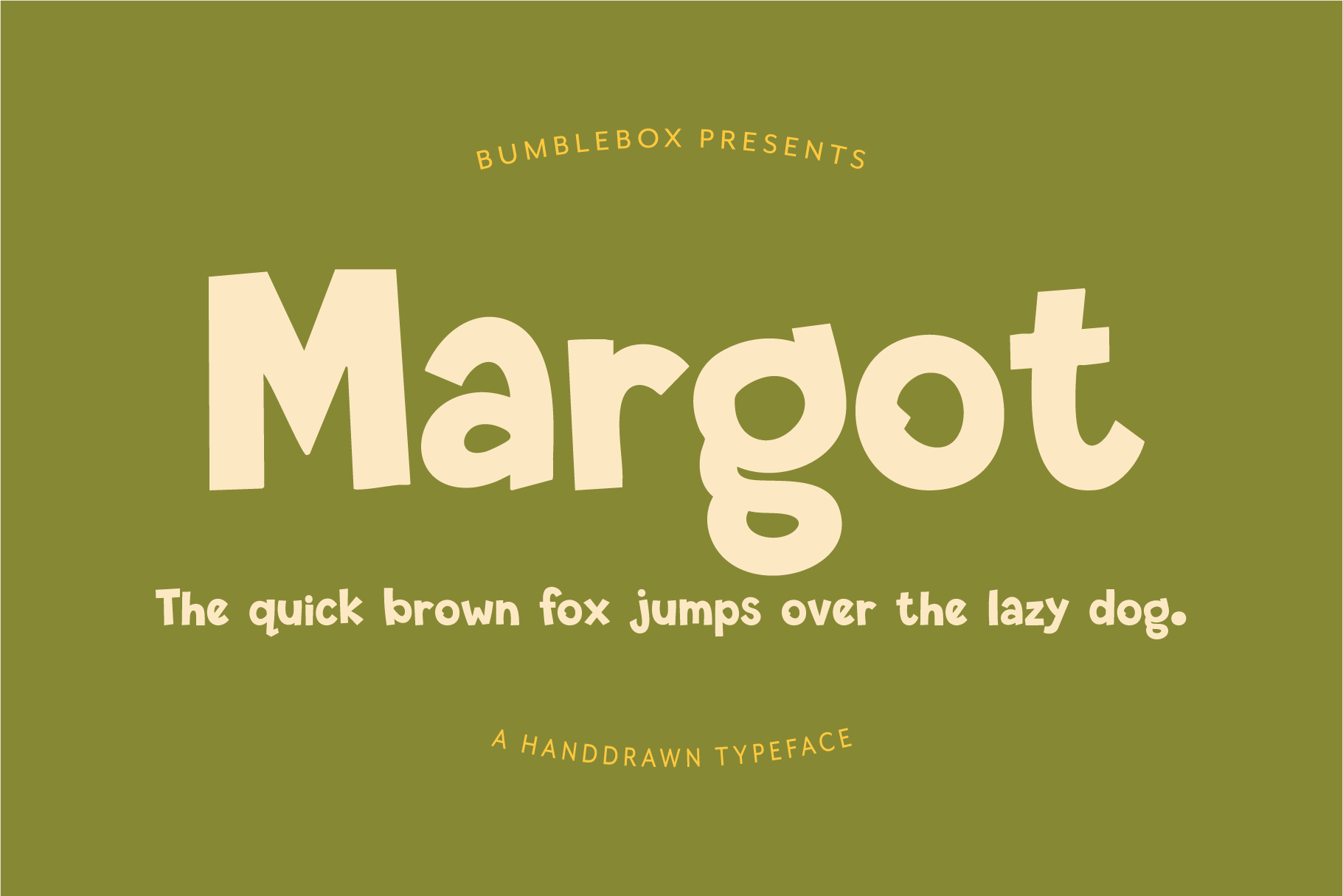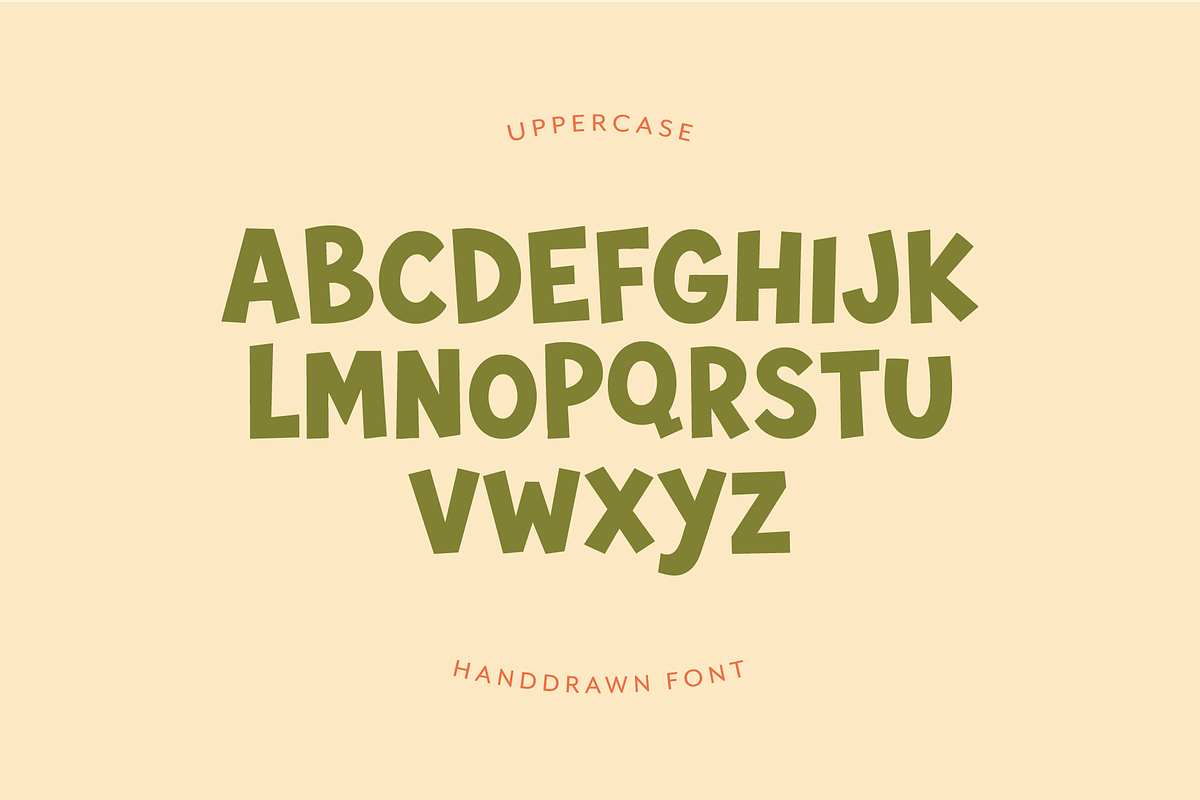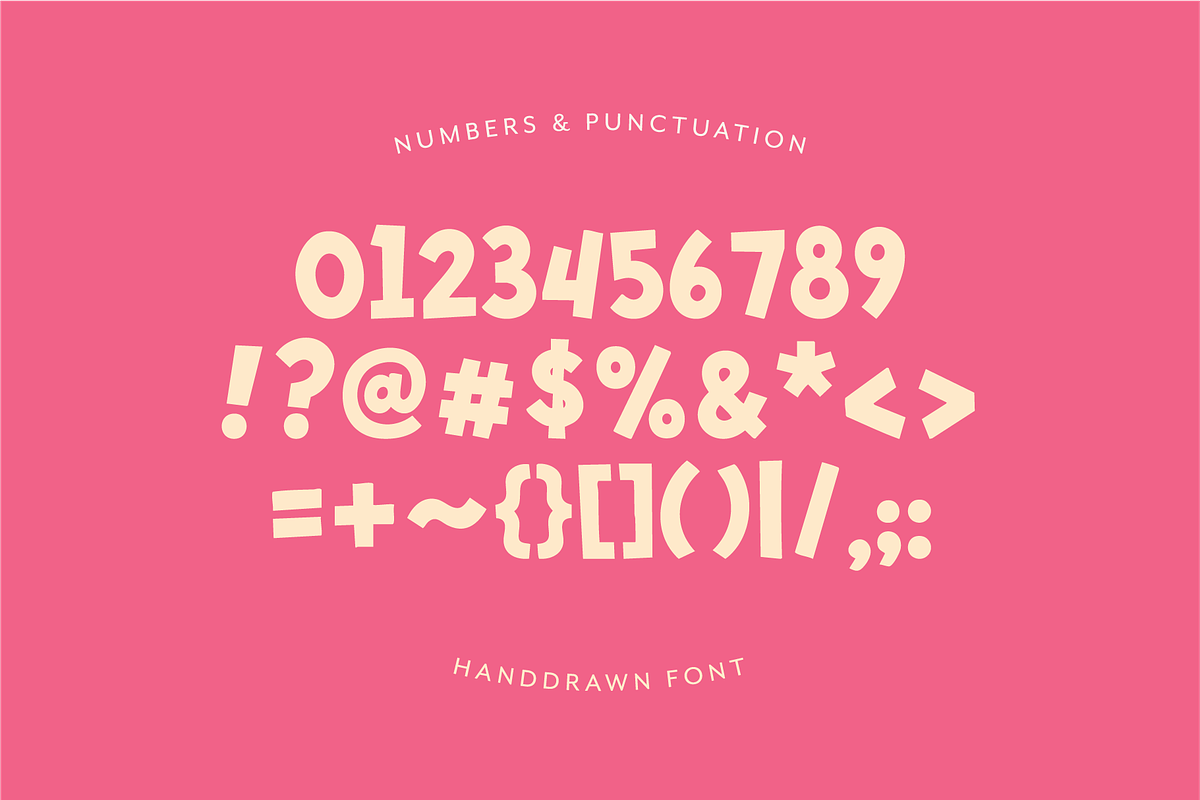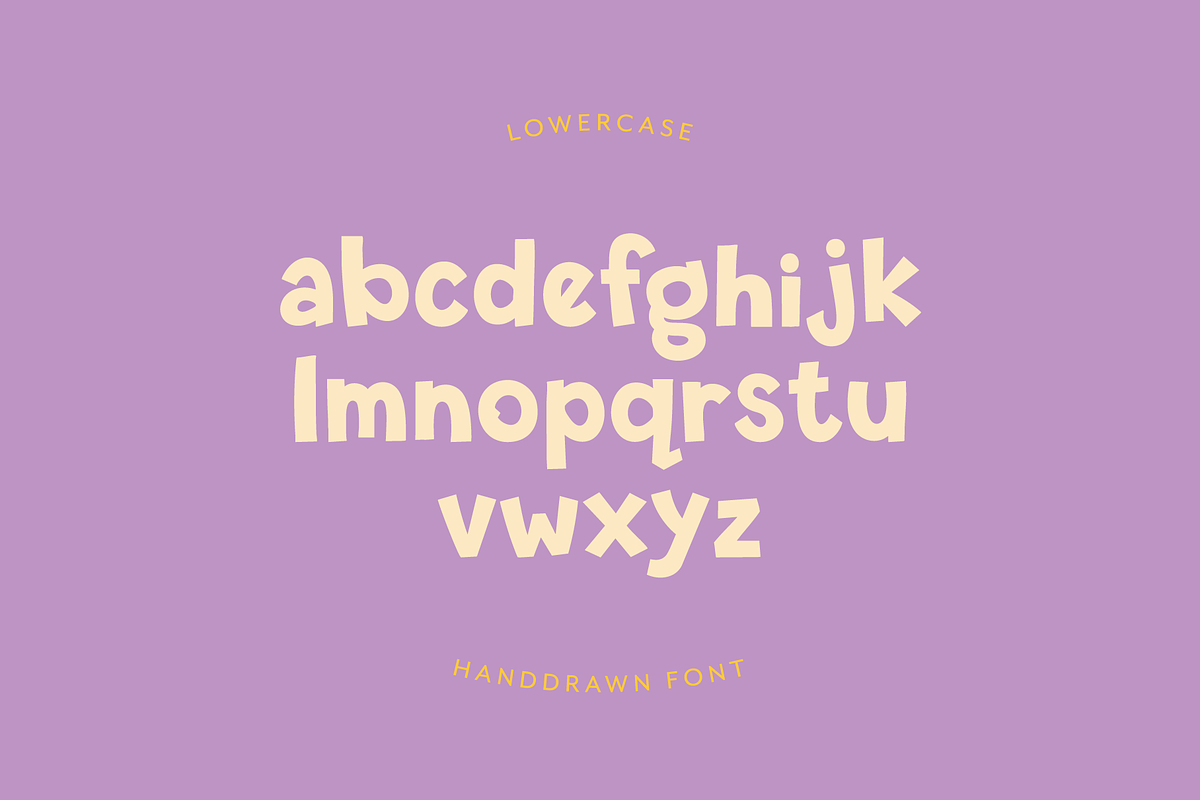
Margot - A Quirky Display Font
Meet Margot, the hand-drawn typeface with big personality and absolutely no interest in standing in a straight line.
Chunky, quirky, and just the right amount of wonky, Margot was made for playful branding, stickers, children’s products, packaging, social posts, book covers, crafty chaos, and anyone who thinks perfectly aligned letters are a little suspicious.
With whimsical curves, bouncy shapes, and hand-drawn charm baked into every character, Margot brings warmth and personality without sacrificing readability. She’s bold enough to stand out, soft enough to stay friendly, and quirky enough to make your designs feel a little more human.
branding
packaging
children’s books
planners & stickers
Cricut projects
YouTube thumbnails
social media graphics
playful quotes
handmade businesses
coloring books
pretty much anything that needs a little joy